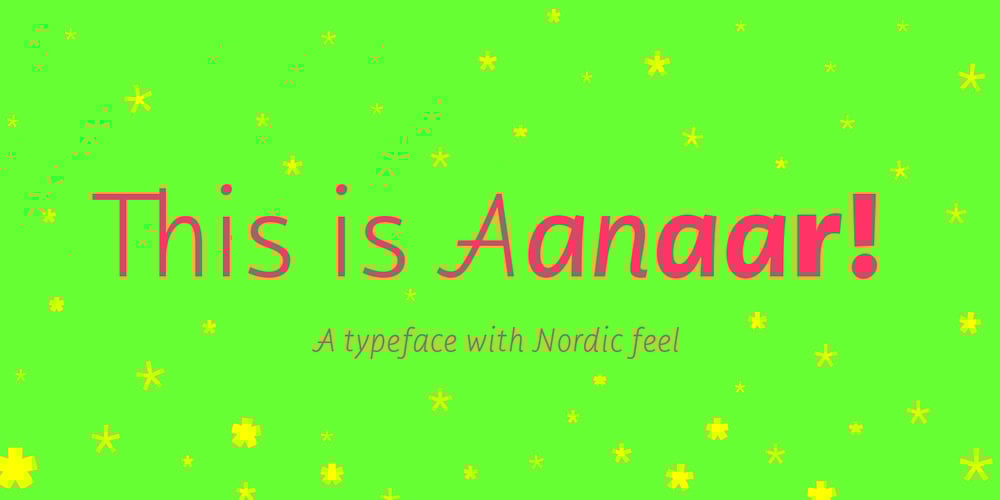
Aanaar Font Family was designed by Pilar Cano and published by Letterjuice. Aanaar contains 7 styles and family package options. This typeface comes from a self initiated project called Sápmi, which aims to contribute to keep a group of minority languages alive through solving issues in the education environment. This re-thought edition takes the name of Aanaar and joins our library with a bigger character set and two new weights which complete the typeface providing a big typographic palette as well as adding stylistic two-story a and g for more advanced readers as well as to enable the typeface to be used in other environments. The typeface was originally designed for children’s text books. Analysing kid’s typeface design, we identified some important problems and solved them within the boundaries we had. The main concern in a typeface which will be used by children is letter recognition, as they have not yet fully develop their reading skills. For example, letters like “a” and “g” share a very similar structure in this particular kind of typefaces, where the only distinctive part is the descender of the “g”. It is known that the lower part of the letter is the less important feature when reading, therefore we decided to make a clear distinction between them by having an “a” with a spur on the top right. This also helped distinguishing “a” and “o”. Children typefaces usually have one story “a”, making “a” usually too close to “o”. Additionally we moved the joint in “a” upwards and narrowed very slightly the “a” to make sure they cannot be mistaken. More generally, the x-height is fairly tall and the typeface has a bit of movement which give it a good rhythm helping moving along nicely when reading. Aanaar consists of 5 weights (Light, Regular, Medium, Bold and Black) plus two Italics (Light Italic and Italic).